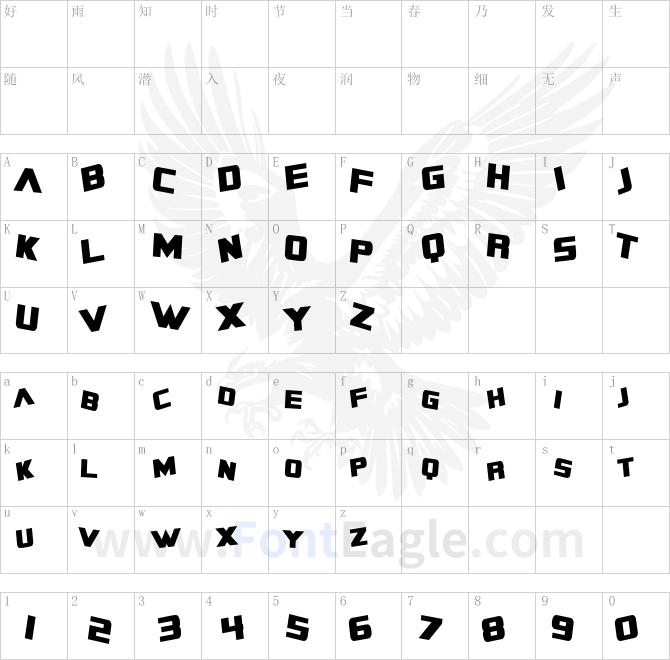
- Font name:SF Zero Gravity Condensed
- Font Subfamily ID:ShyFontsTypeFoundry: SF Zero Gravity Condensed Bold: 1999
- Font Full Name:SF Zero Gravity Condensed Bold